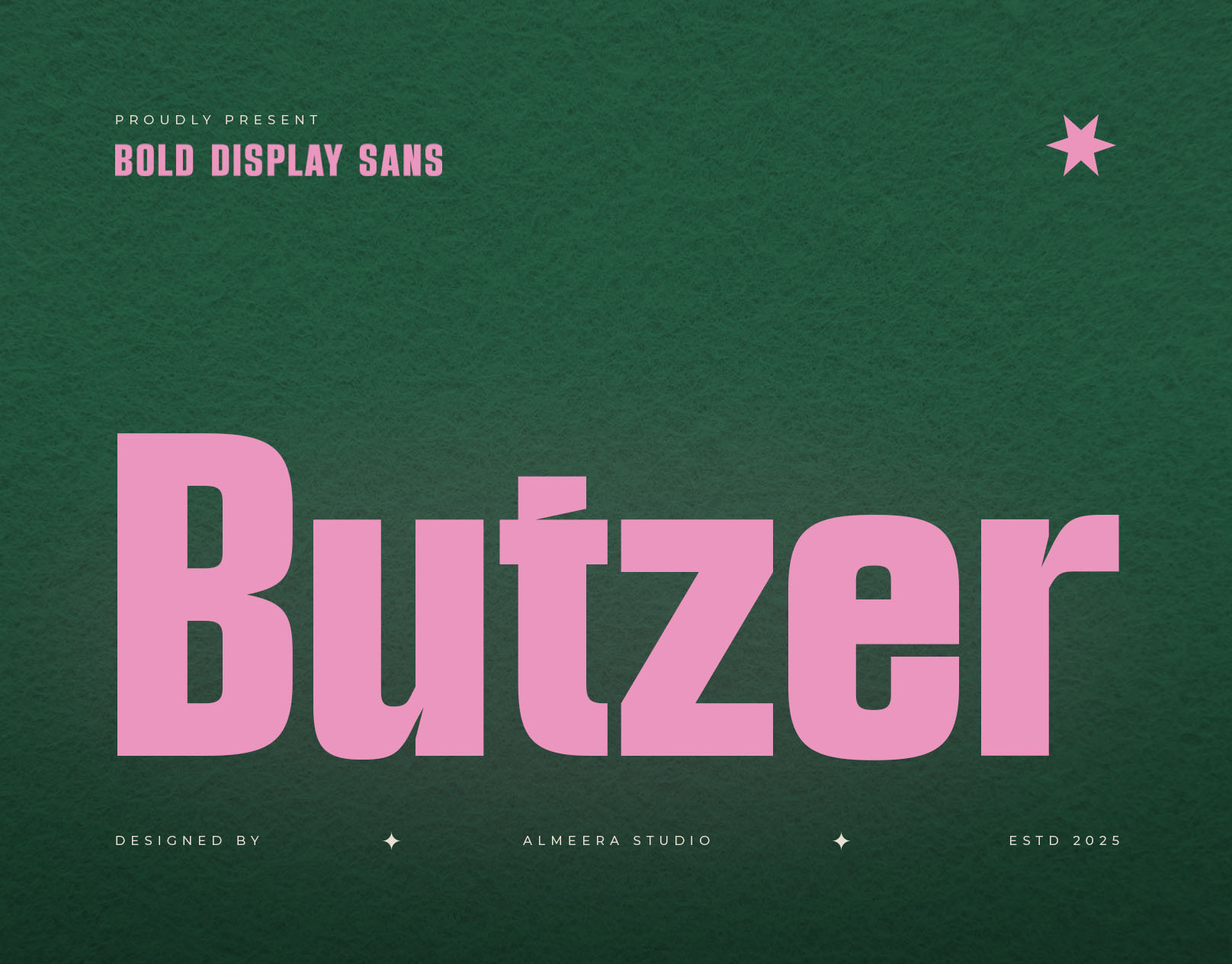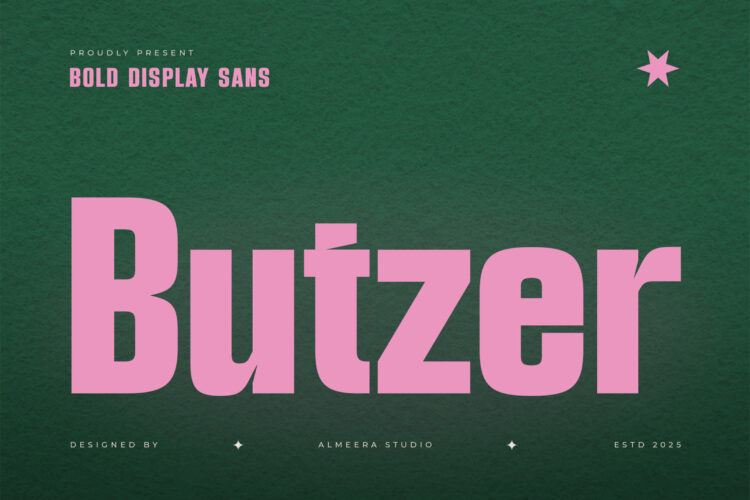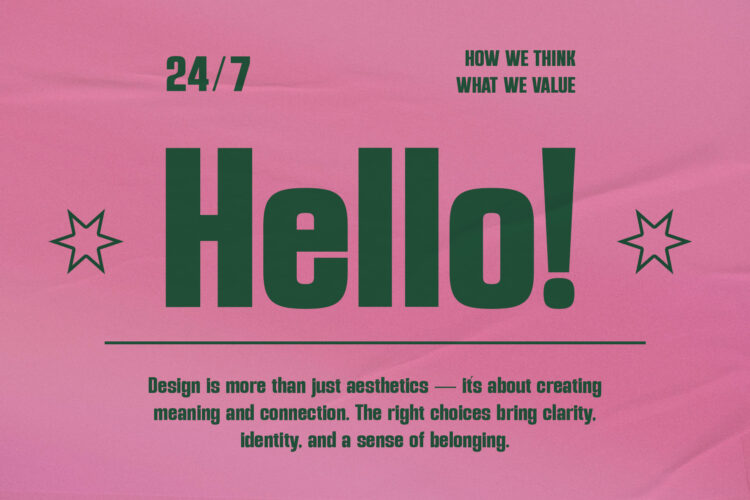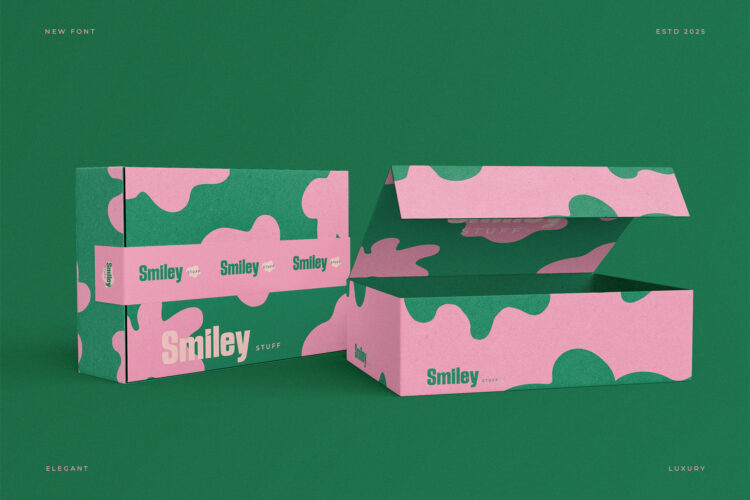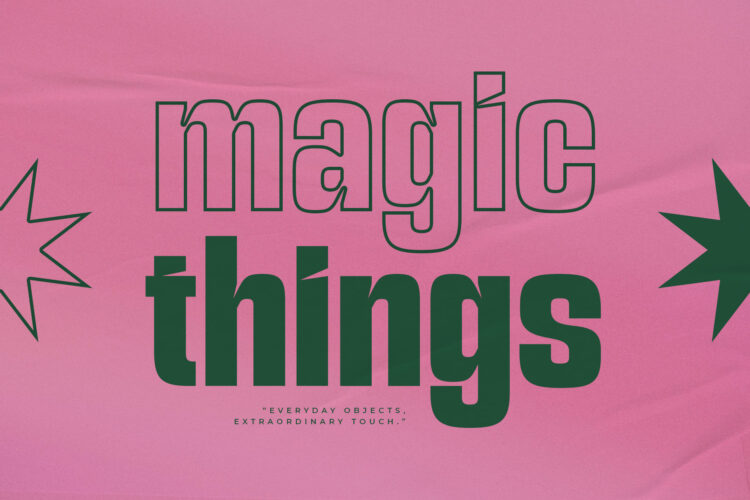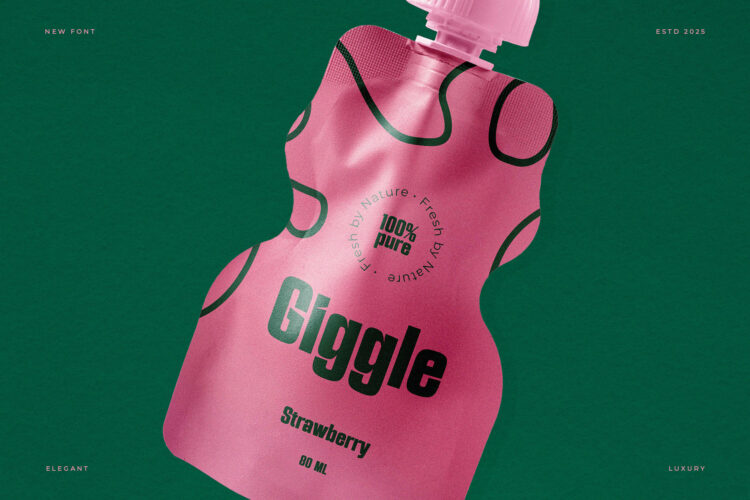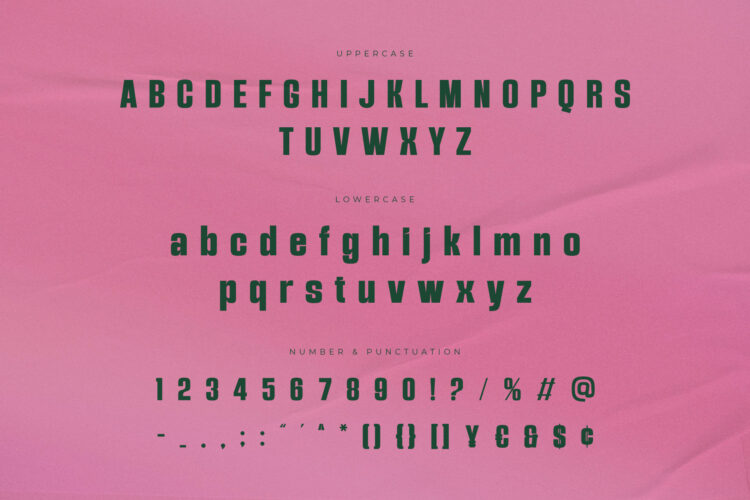
Butzer is a bold display sans serif font made for striking visual statements. Featuring clean curves and sharp details, this typeface works well for logos, posters, sports design, editorials, and digital graphics. Butzer combines readability with confidence, making it a reliable choice for both print and screen.
Butzer – Bold Display Sans